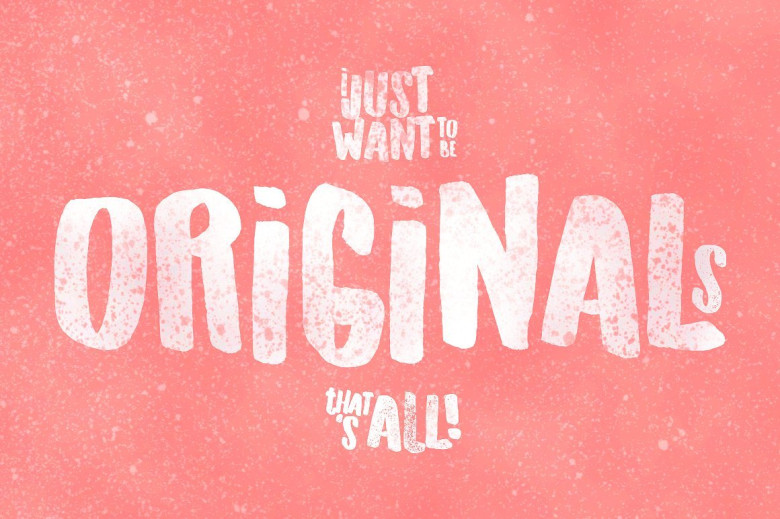
Originals Typeface
Introducing Originals Typeface! Originals designed by LeoSupply.co, this is a premium font, are sold on creativemarket, but it was great, it is free today for download. Originals Typeface is a handdrawn playful display font. The font can be used for many purposes but looks great when put on signs, shirts or cards. Also, it works perfect on fresh summer theme designs.